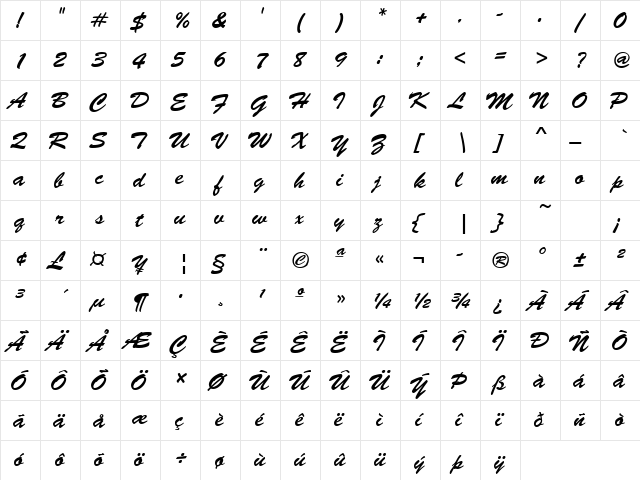
BrushScrJoiD Regular Font Preview
BrushScrJoiD Regular
Design Context for BrushScrJoiD Typeface
BrushScrJoiD flows with the natural rhythm of handwritten lettering, making it ideal for designs that call for warmth and personal expression.
Font Pairing: Combine BrushScrJoiD with a simple geometric sans for maximum contrast — the tension between flowing curves and clean structure is a classic typographic pairing.
Pro Tip: Use BrushScrJoiD for short runs of text — names, titles, or taglines. Extended body copy in script faces tires the eye quickly.